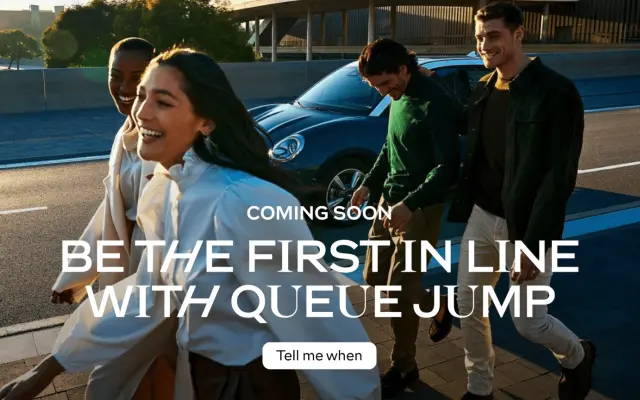
ORA funky
Character Type · Henning Skibbe
A bespoke headline and text family for the ORA electric car brand, blending sans, serif and italic styles within a single font via a smart OpenType algorithm.
Designed by Henning Skibbe for the ORA electric car brand redesign led by Jung von Matt/Brand Identity, the family spans two optical sizes: a text cut in Regular and Bold, and a headline cut that houses three styles (Sans, Serif and Italic) inside one font file. An OpenType algorithm automatically varies styles during typesetting, removing manual style-switching from the designer's workflow. The uppercase sans draws loosely from the wide Antique Maigre 182 of Fonderie Haas (1864), while the serif style adopts evenly distributed widths in the tradition of Rosart and Baskerville.
The family combines sans, serif and italic styles within a single headline font, driven by OpenType rules, making straightforward category assignment difficult; classified as display due to its primary function as a headline typeface with lifestyle branding intent.